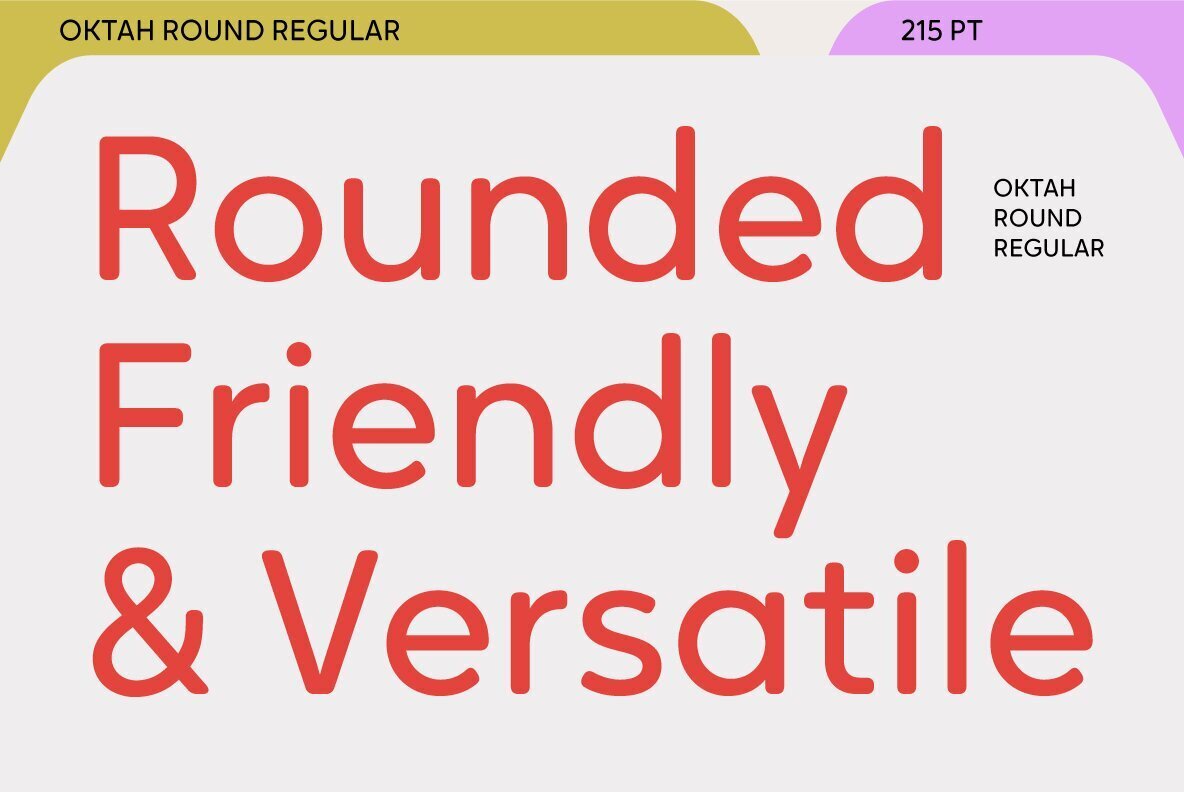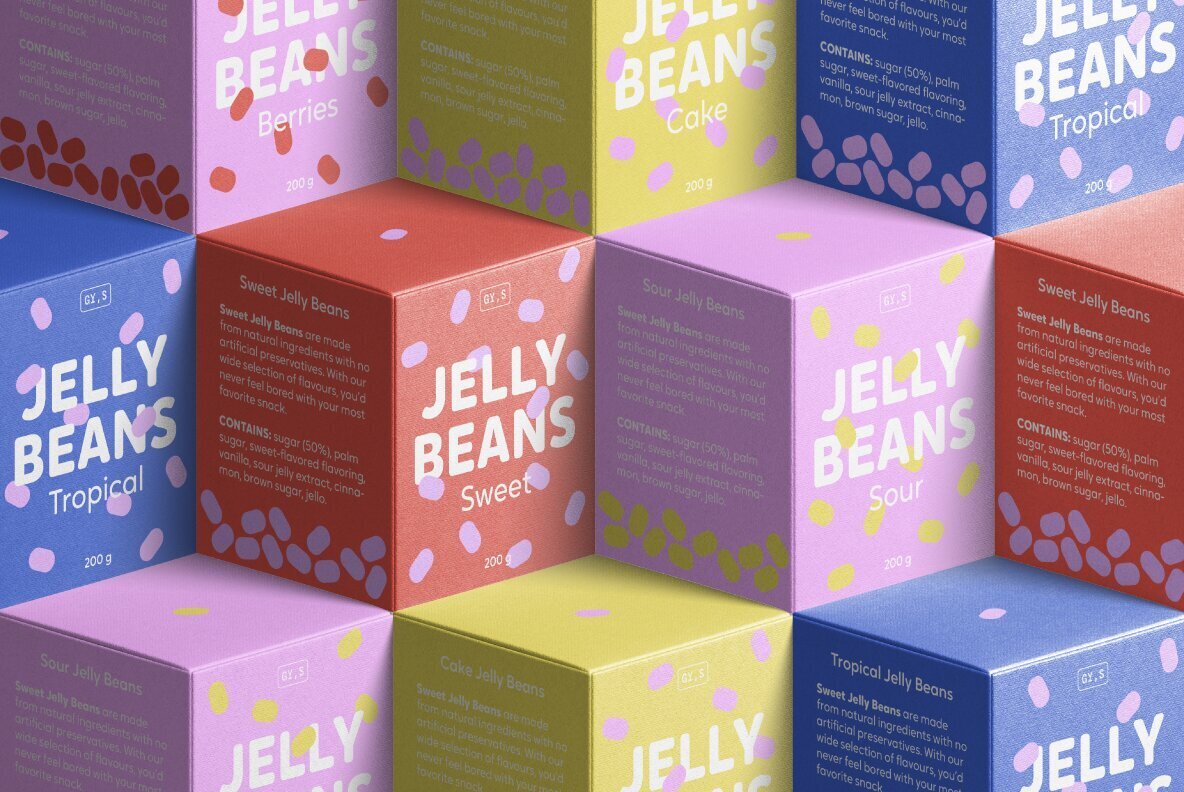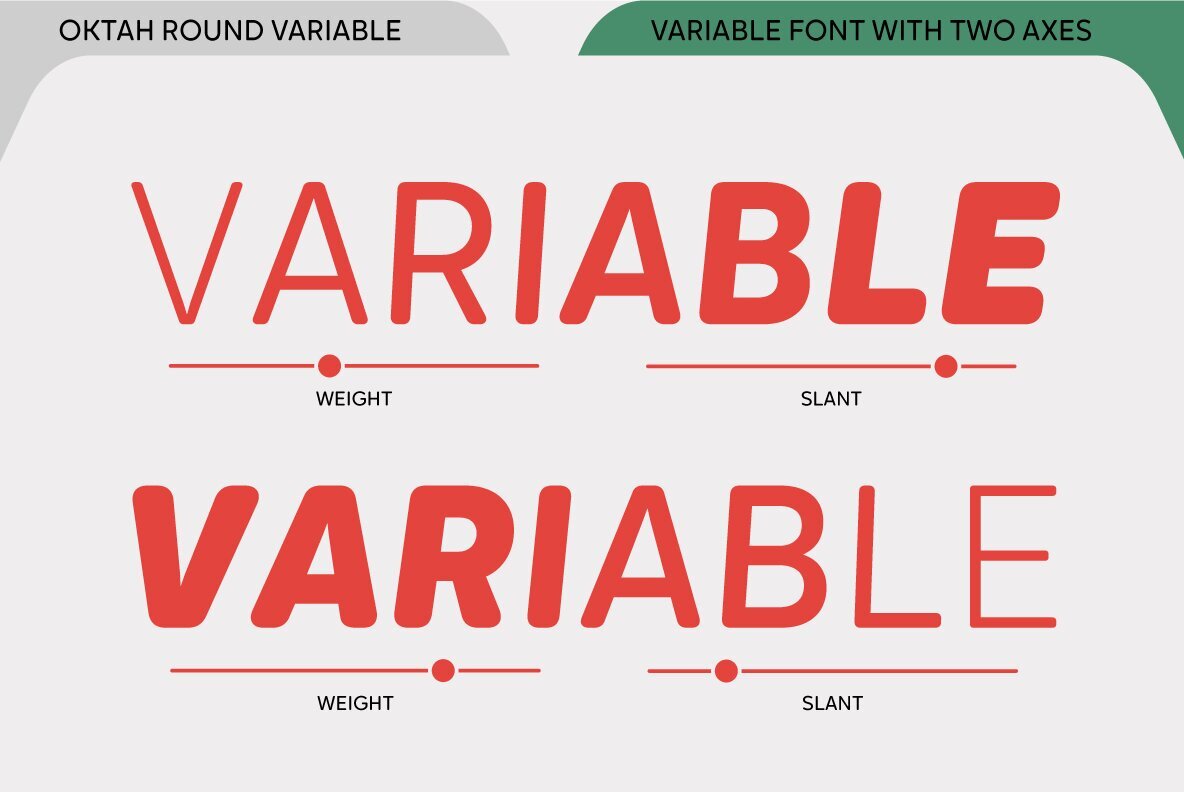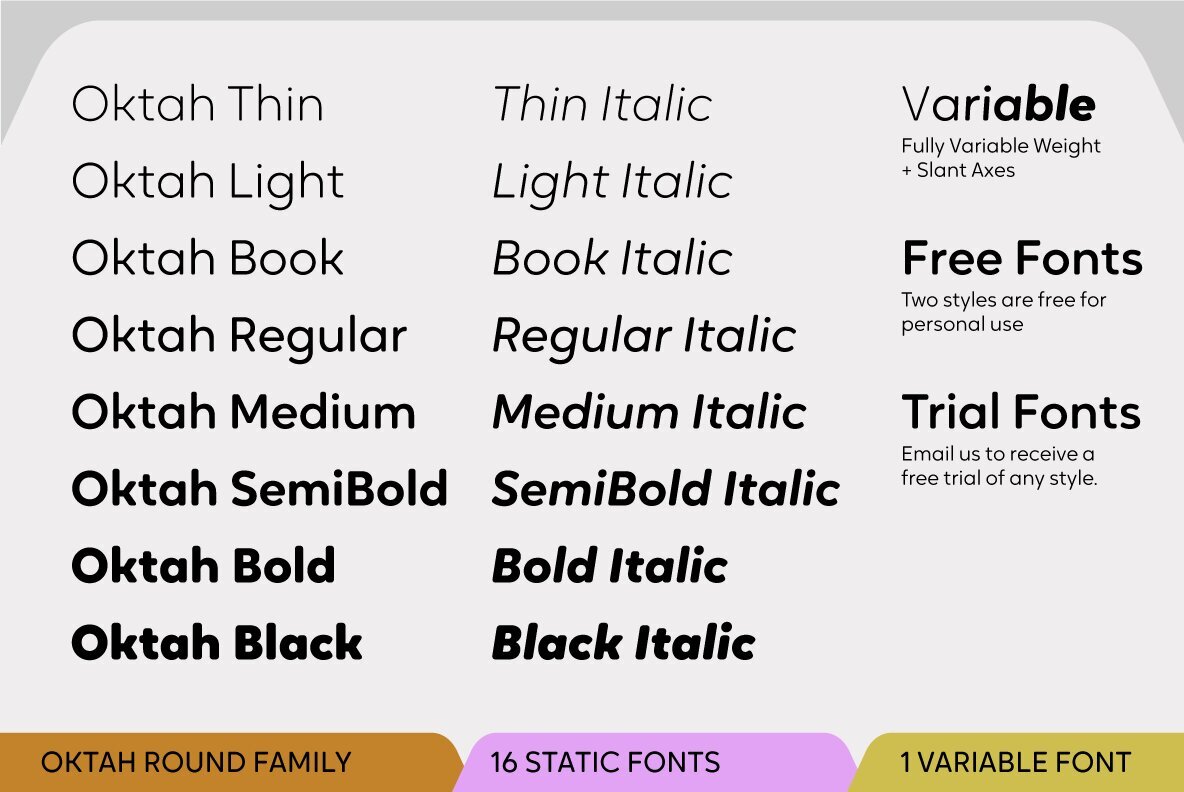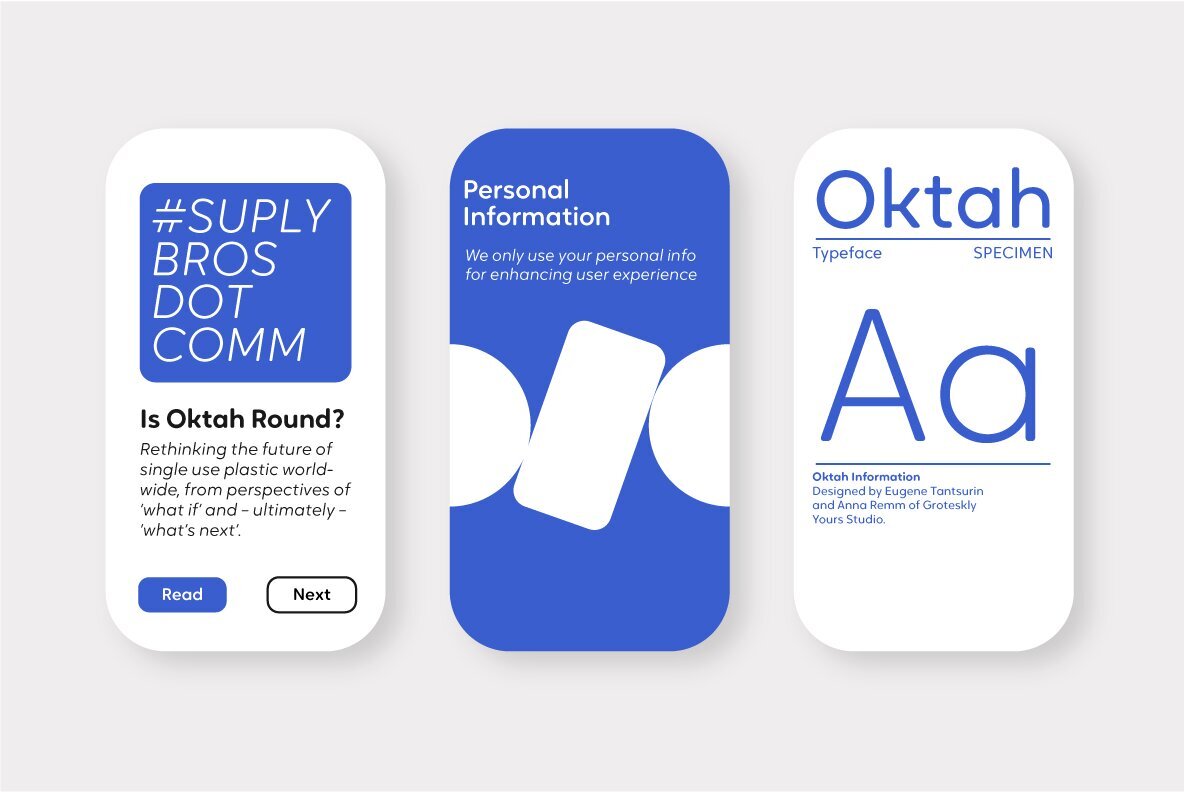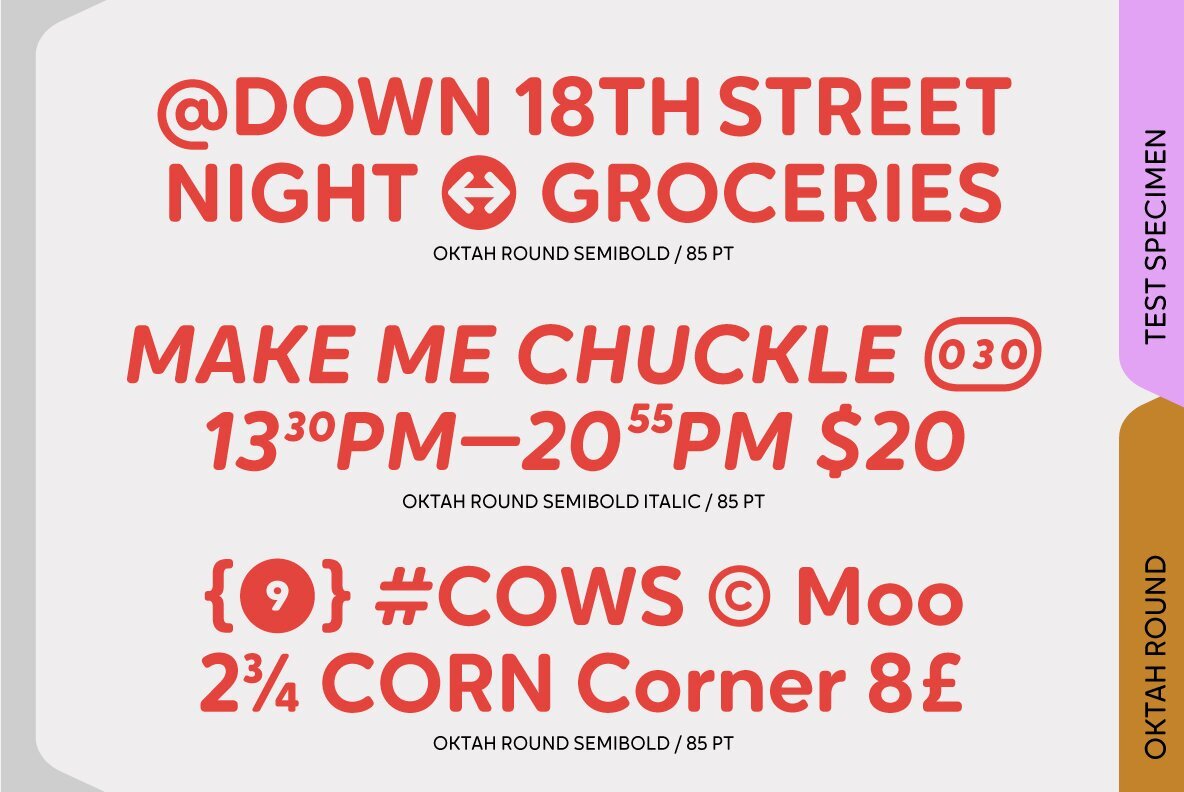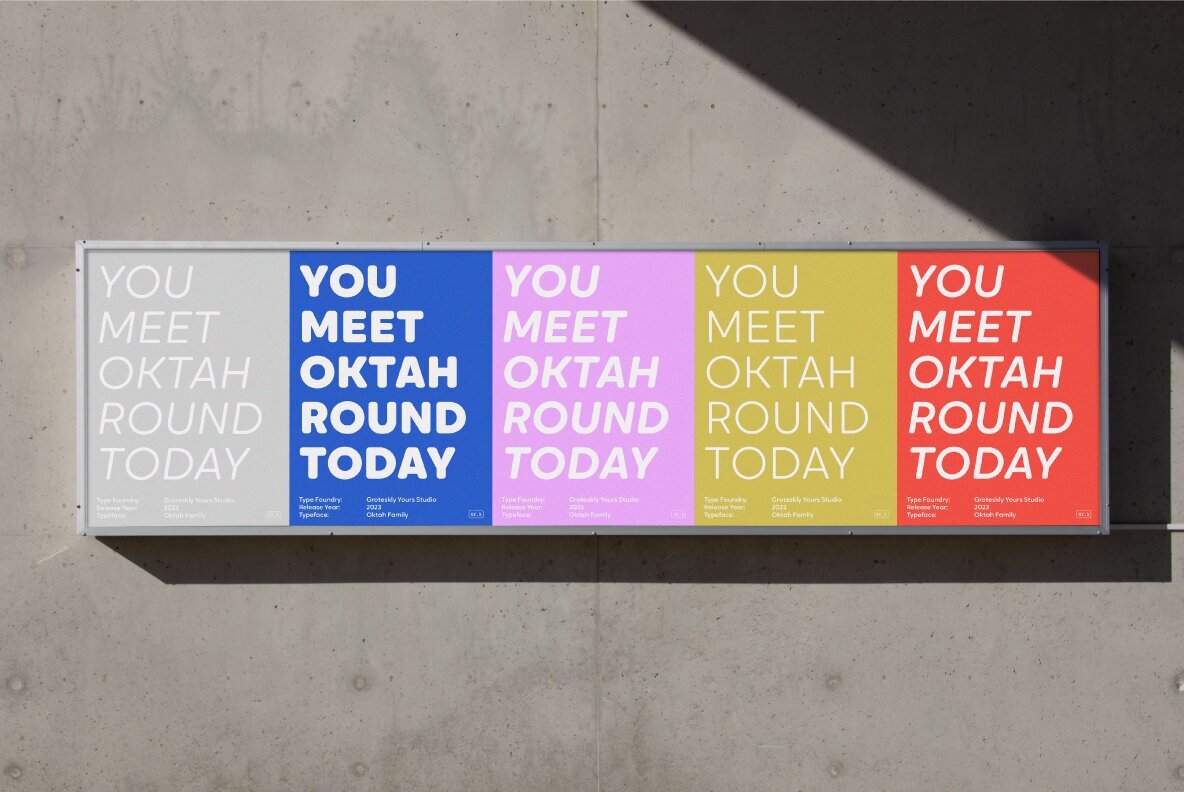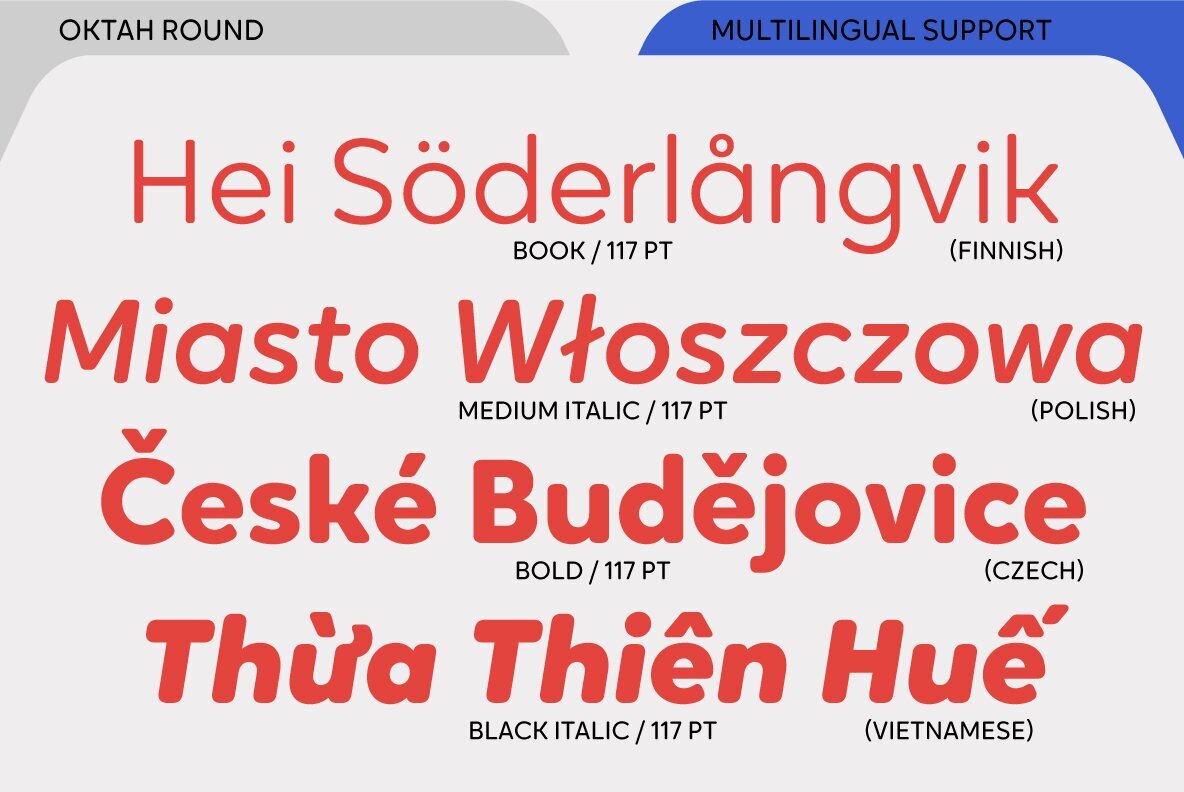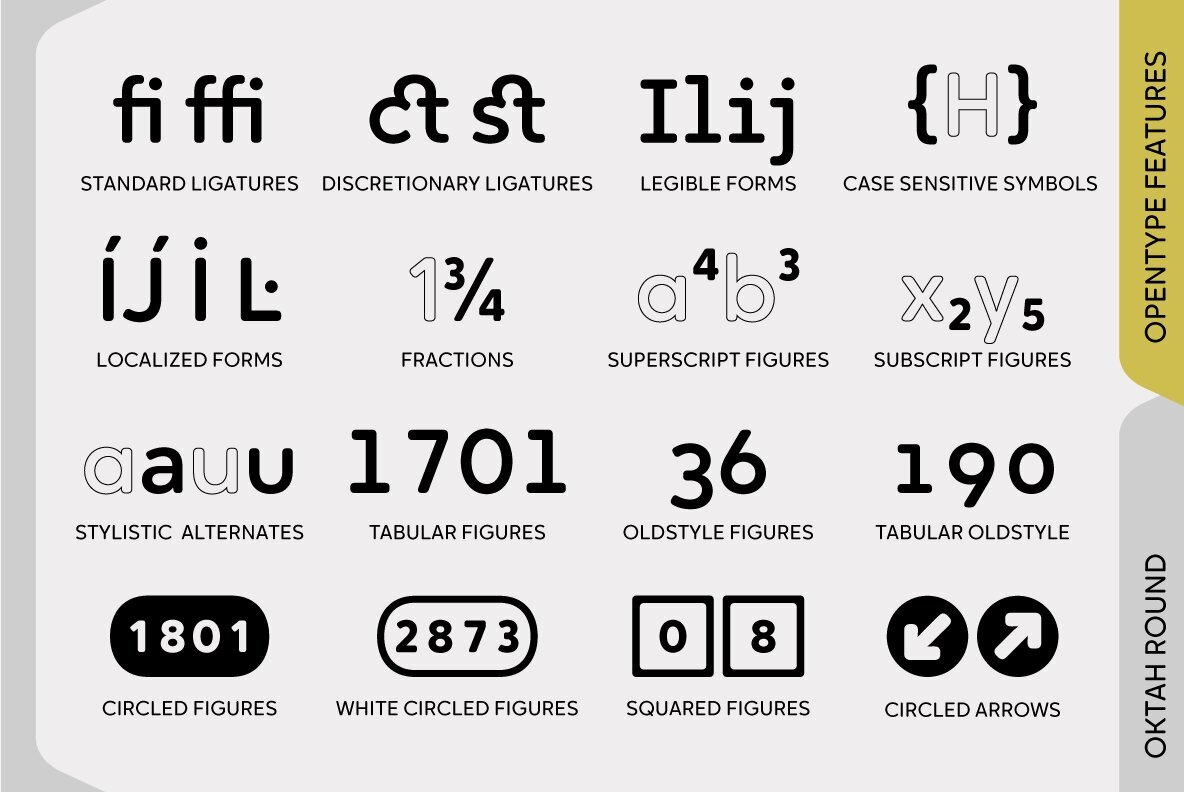
Oktah Round Font
Oktah Round is a rounded version of Oktah Neue. Oktah Round is soft and friendly, modern and warm. It's a typeface that combines human touch with high functionality. Oktah Round comes equipped with 1600+ characters per font and is available in 16 styles (from Thin to Black), and as a variable font that allows you to change weight and slant angle. Oktah Round supports more than 200 Latin languages and has amazing support for Cyrillic languages like Bulgarian, Russian, Serbian, Ukrainian, and others.
Relying heavily on the geometric forms and proportions first introduced in Oktah, this rounded version does more than just smooth out a few corners. To make curves sharper and more uniform, some terminals were modified. Other visual features (like curving tails in 'l' and 't') were dropped to create more clear cut look. Oktah Round is perfectly balanced and finely tuned to be the font you'd want to use again and again. The variety or styles and availability of a variable font give Oktah Round a potential to be used across multiple mediums.
Oktah Round supports most Latin based languages, it also has support for Extended Cyrillic. The remainder of the extensive 1600+ glyph character set is reserved for punctuation, numbers, special symbols, and all sorts of additional symbols like squared numbers, geometric shapes, etc. All characters are evenly spaced and carefully kerned, so that there are no overlaps or glaring gaps in any language. OpenType features include Legible Alternates, Case Sensitive Punctuation, Fractions, Sub- and Superscript, Black and White Circled Figures, Ligatures, Oldstyle Figures, Tabular Figures and many others.
The variable font incorporates both axes (Weight and Slant) and can be used for web and graphic design alike. 16 static font styles can be purchased separately or as part of Oktah Round family. Two fonts can be downloaded free of charge.
Oktah Round Overview:
- 1600+ characters per font
- 16 static fonts
- 1 variable fonts
- Extensive OpenType features
- Support for 220+ Languages (Latin & Cyrillic)
- Special Symbols, Alternate Sets, and Features